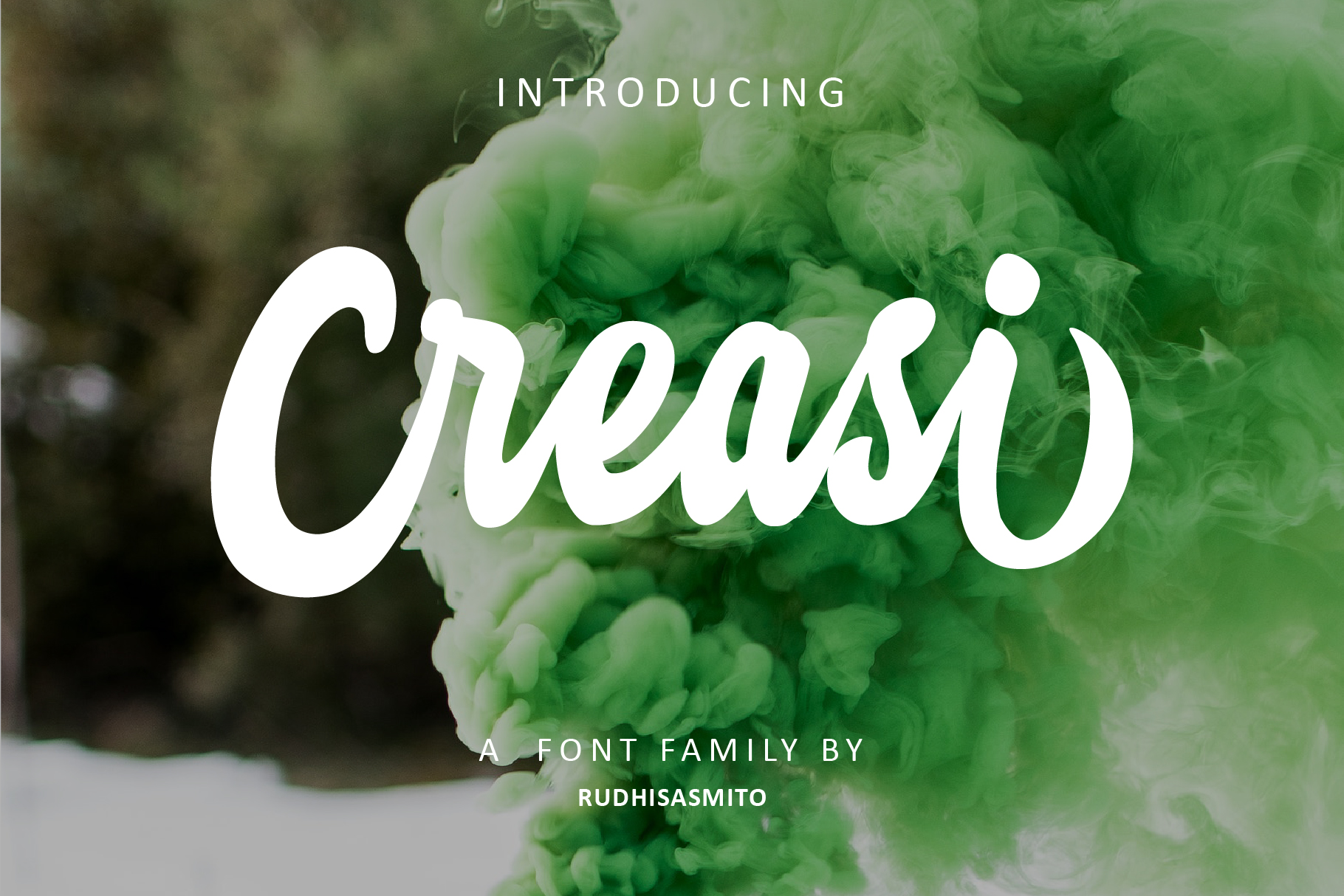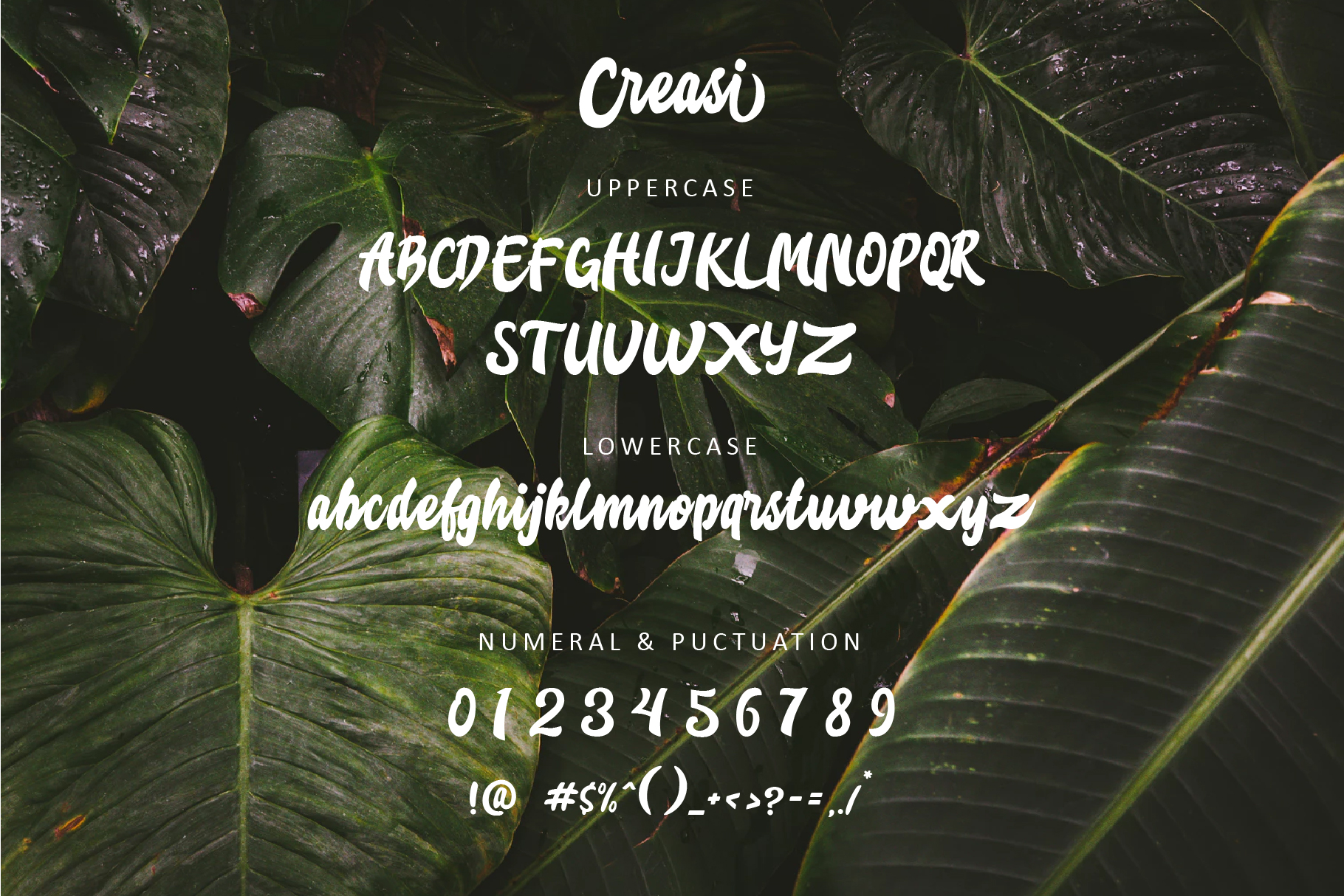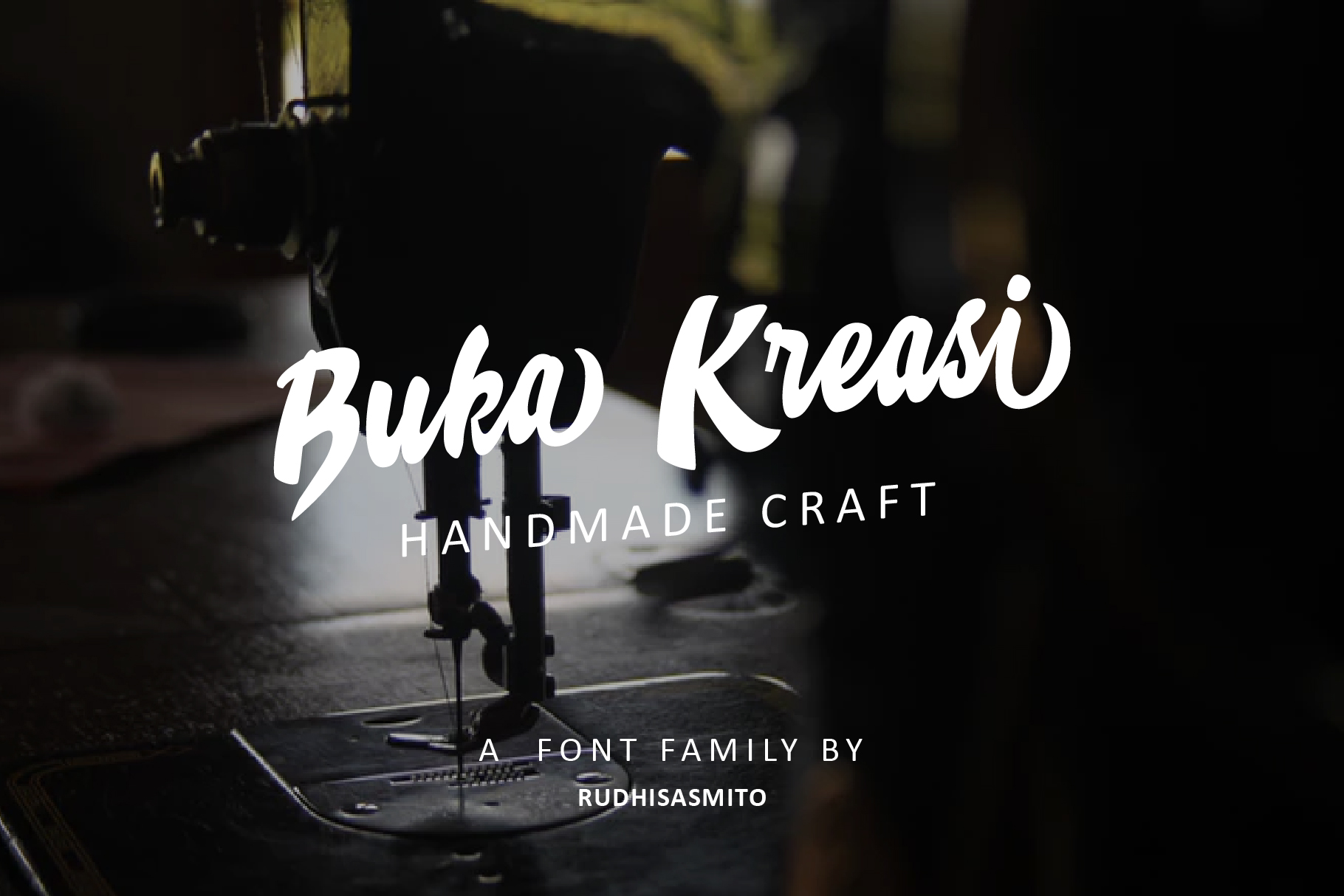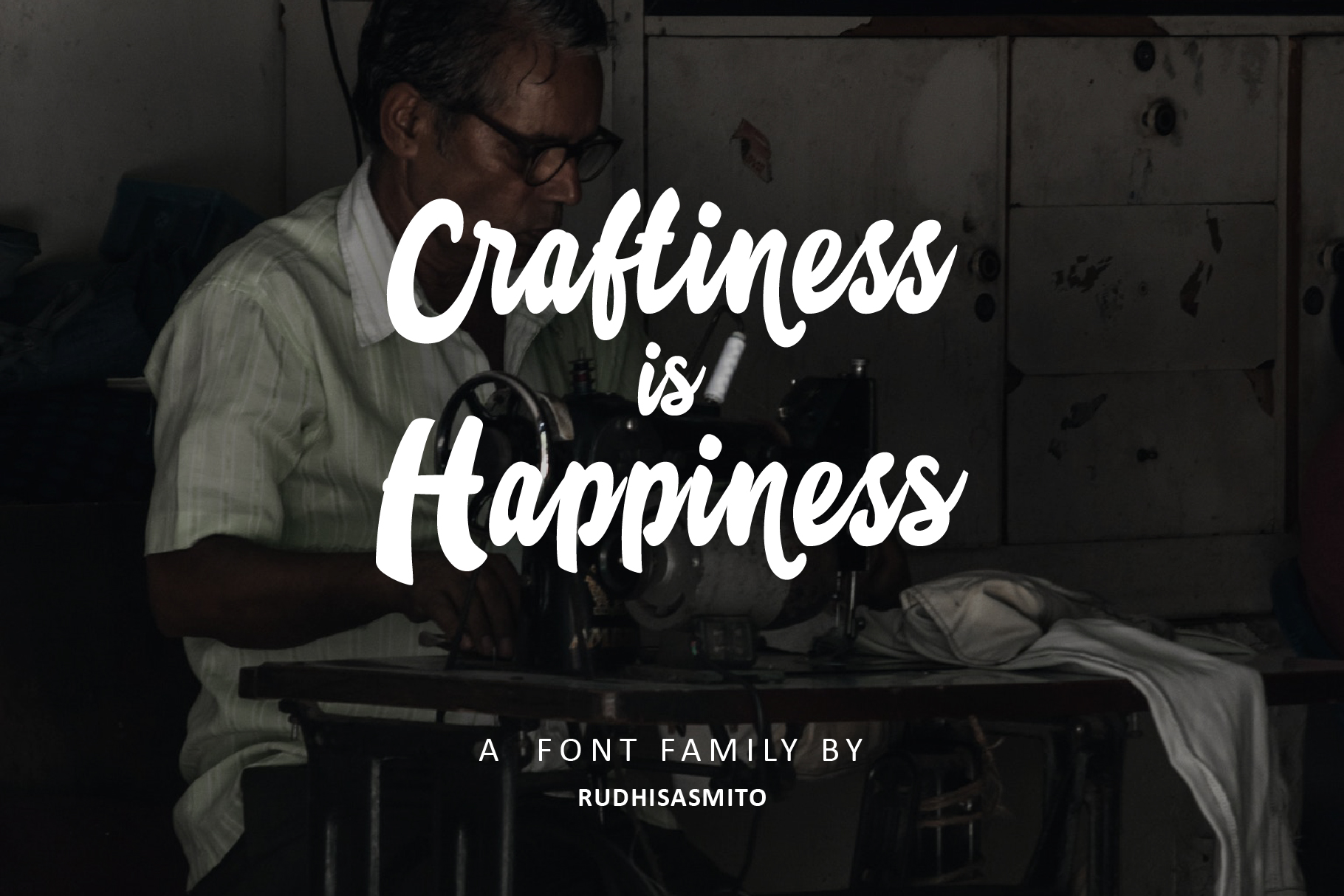
Creasi Font
About Creasi Font
Creasi is a gorgeous, modern calligraphy font that was crafted for signatures, logos, and other display options. This font has a bold weight, and works well in a wide range of project types.